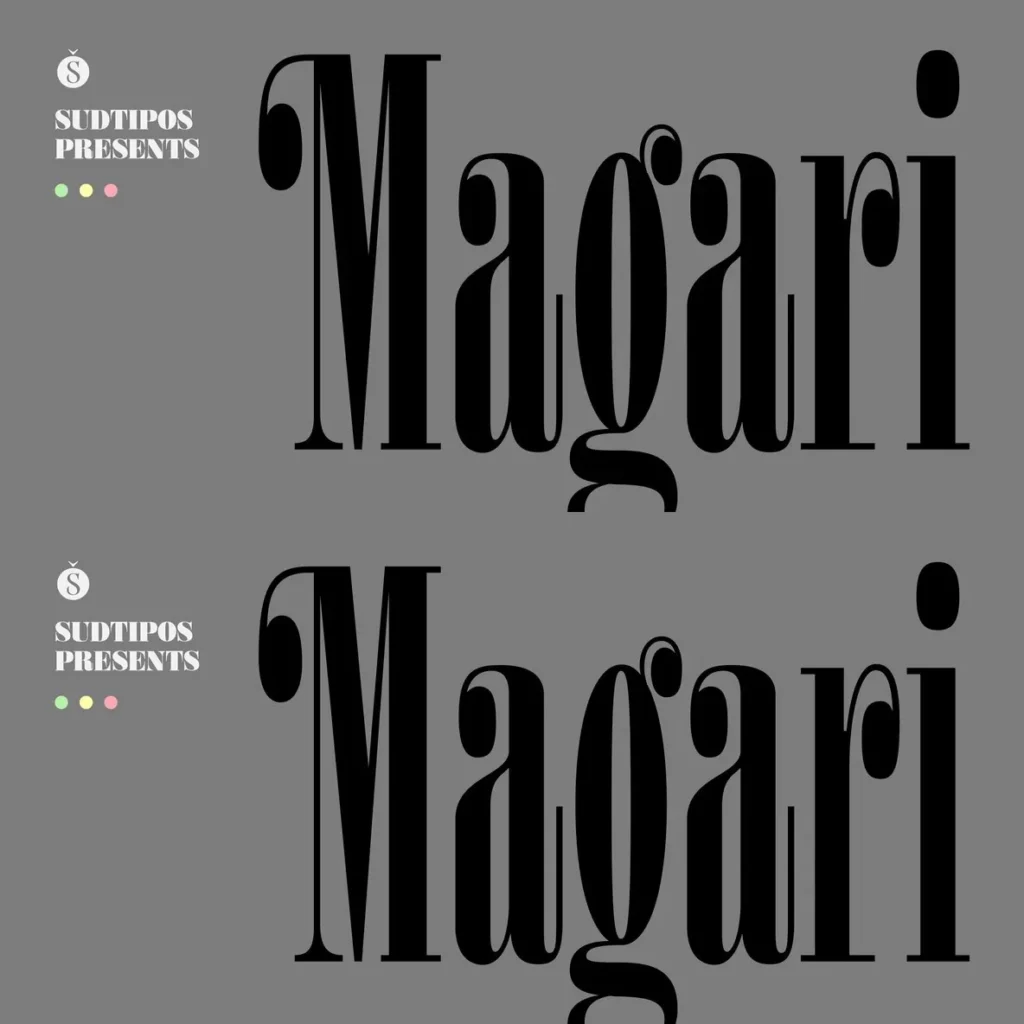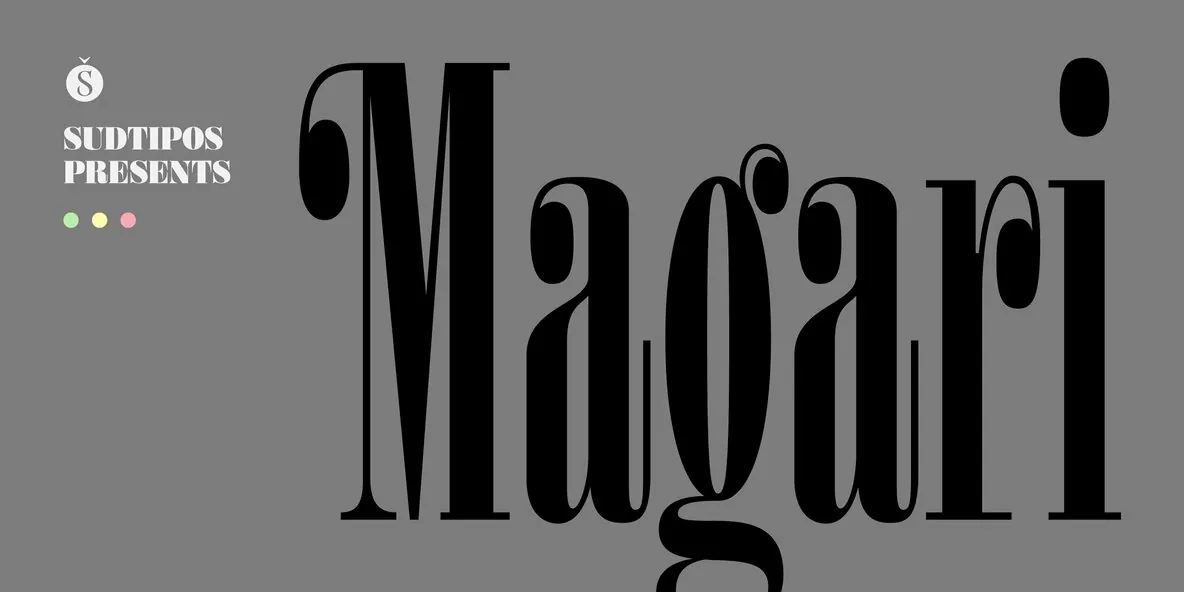
Magari — Condensed Serif, Jazzy by Nature
Partially inspired by mid-19th century German condensed serif typefaces—with a clear connection to Italian classics—Magari brings that fusion into a distinctive contemporary voice. It ships as a unique variable font file, or as 9 specific weights. This range makes it easy to dial in the right tone, whether you need tight compression or a broader, more expansive presence.
From an ultra-compressed Thin to an extended Black style, Magari is made for display use. Its jazzy character and wide weight range help it perform in advertising, packaging, and editorial design, delivering strong impact whether it reads thin and tall or big and bold. Three kinds of lowercase endings—from a serif to two tailed strokes—plus two different swash sets for the capitals, support countless typographic results.
The name Magari comes from a lovely Italian expression used for many positive things—exactly the intention behind this typeface.